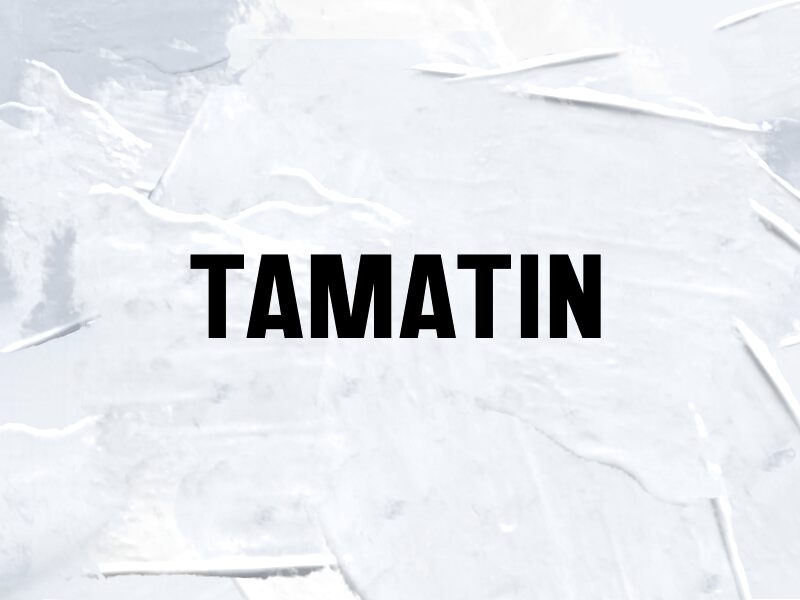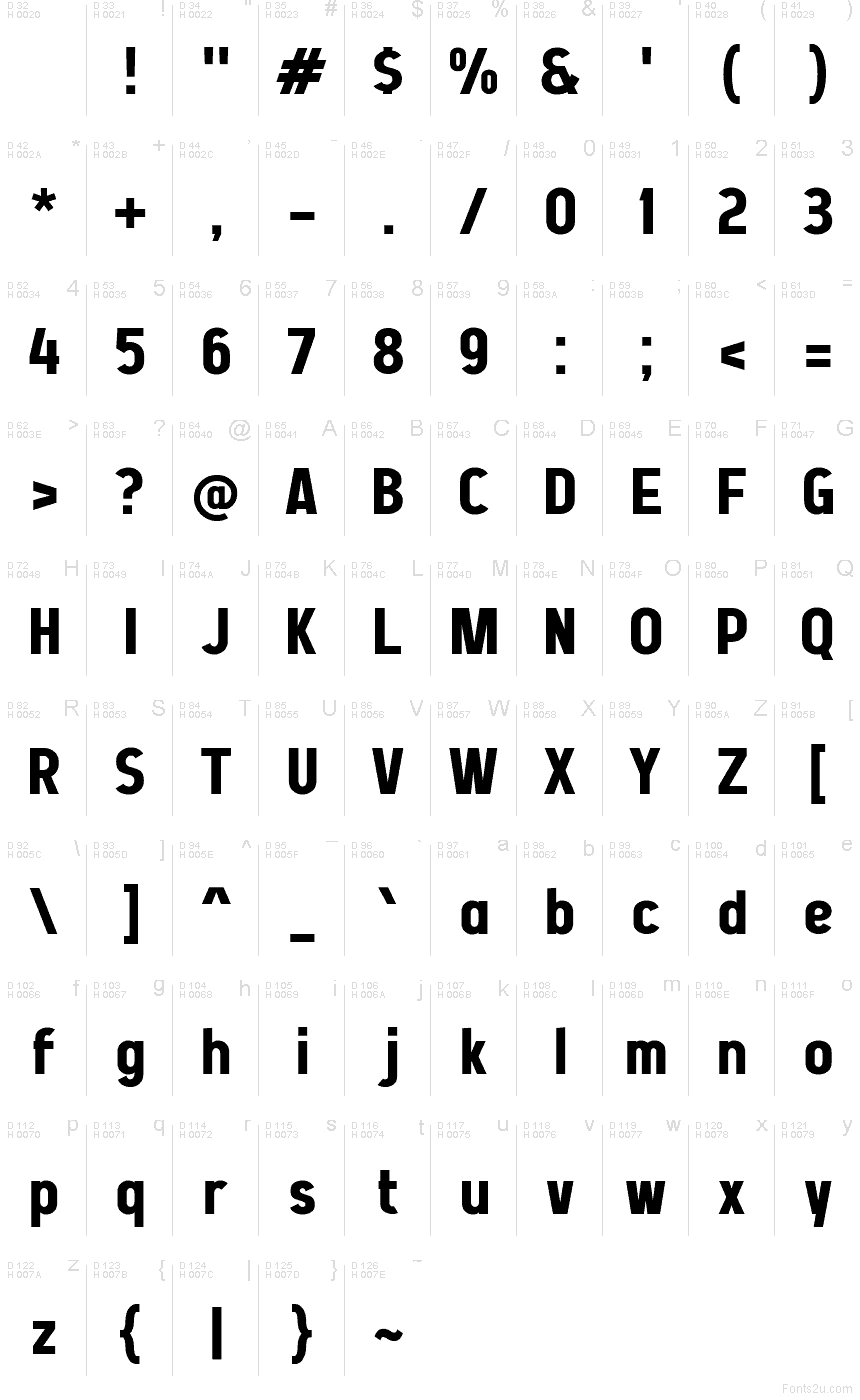
TAMATIN
Tamatin font by wepfont.com is a free geometric sans serif typeface with a bold, blocky stance and smoothly rounded counters that feel almost rubbery. The letters stack up like compact building blocks—tight, upright, and steady—so your words hit with a solid visual punch without feeling harsh. Clean verticals and squared curves give it a techy, contemporary attitude that still reads clearly at a glance.
Using Tamatin, headlines and logos instantly gain a sturdy, confident voice that suits esports branding, app interfaces, product packaging, posters, and bold social graphics. This free font shines when you set it large and keep messages short and punchy; pair it with a light, neutral sans for longer body text to let Tamatin handle the hooks and hero lines.